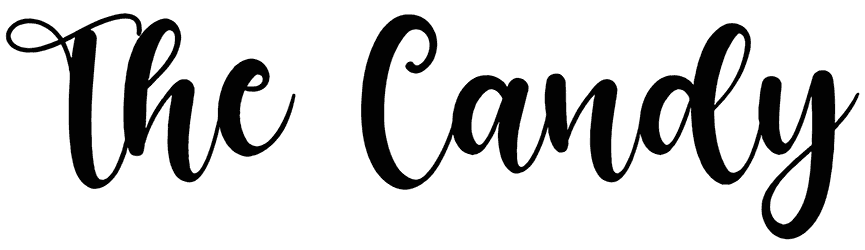
The Candy Font
Why should any of your designs miss a sweet tone when you can always get there with a click with The Candy on your side? It gets even better when you choose this romantic font as a pastry shop logo, ice cream store sign, bakery website, etc.
The handwritten style sets the mood perfectly for a close interaction with the audience, as this cursive font creates enough intrigue for them to make the connection last.